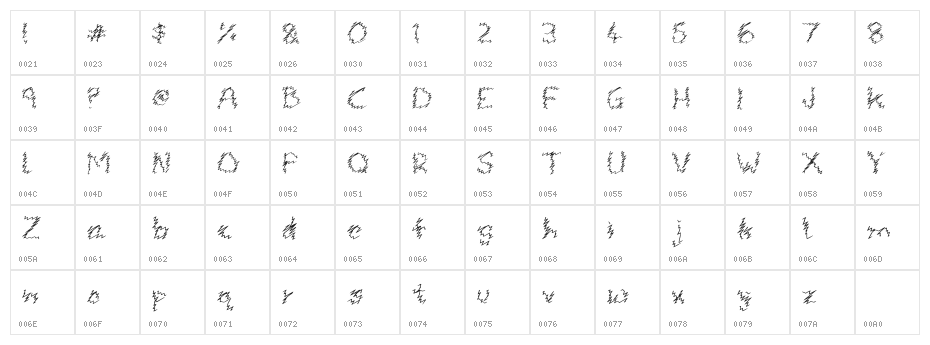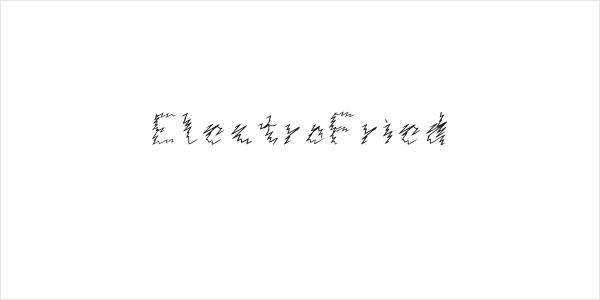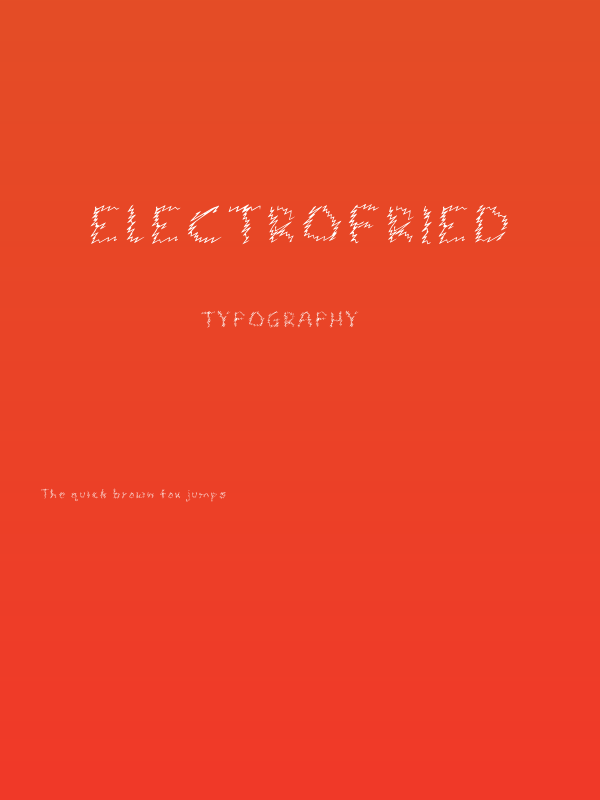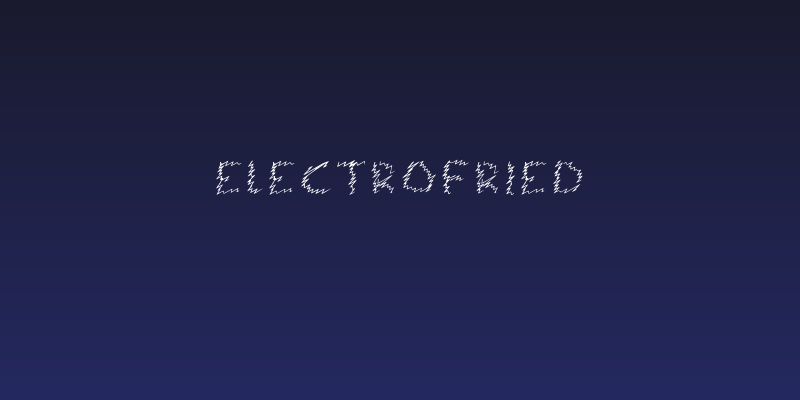
ElectroFried Font
ElectroFried Description
This font features a dynamic, electrified style with jagged edges and a bold, energetic appearance. The characters are designed to mimic the look of electricity or lightning, giving them a unique and striking visual impact. Each letter and number is crafted with sharp, angular lines that create a sense of movement and intensity. The font's design is highly decorative, making it ideal for projects that require a bold and eye-catching typeface. The irregular shapes and high contrast between the strokes add to its distinctive character, making it stand out in any design context.
| Overall Style | Modern, Energetic |
| Proposed Projects | Ideal for music album covers, event posters, video game titles, and branding for tech or energy companies. |